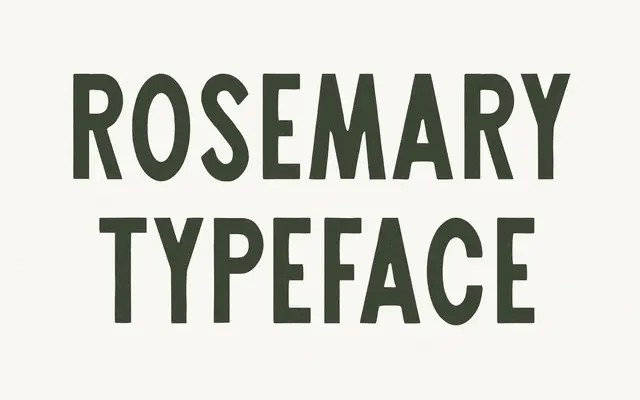
Rosemary
A single-weight humanist sans with restrained personality, aimed at branding, packaging and everyday commercial use.
Available only in Regular, Rosemary is a quietly characterful sans-serif with careful stroke work that sits comfortably across logos, packaging and web use. The glyph set covers 151 characters with basic Latin and a modest selection of accented forms for Western European languages. Its accessible, even texture and clean construction make it a reliable workhorse at modest price.
The page describes restrained, carefully drawn strokes with a quiet personality, consistent with a humanist sans-serif approach that prioritises legibility and subtle character over geometric rigidity.